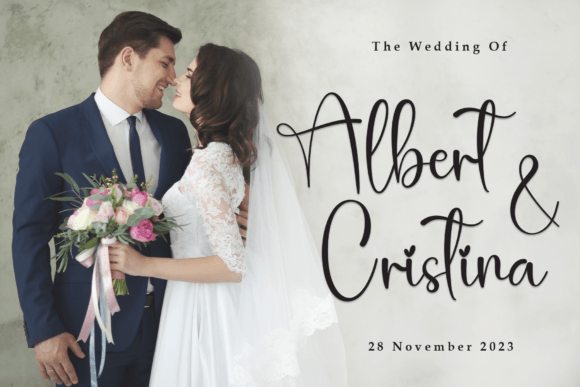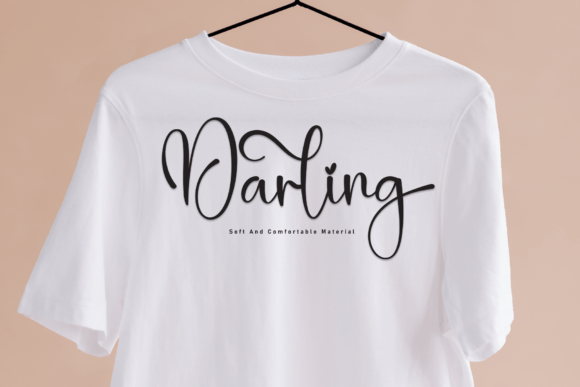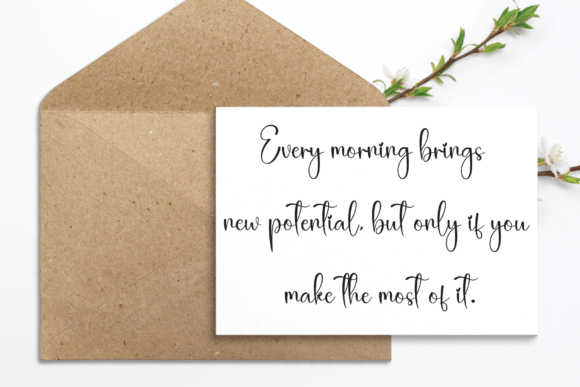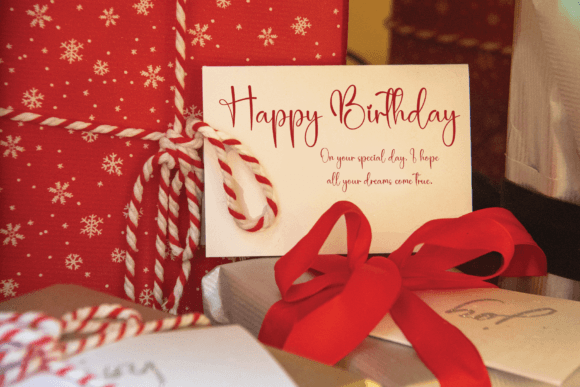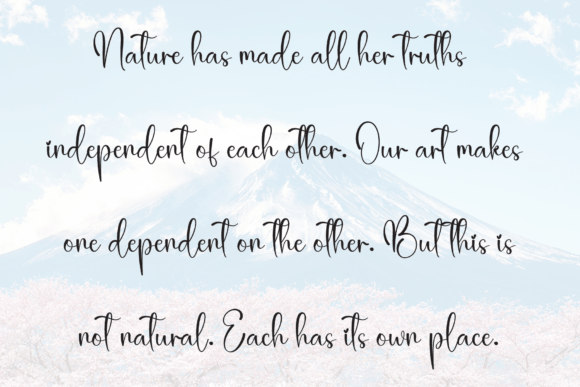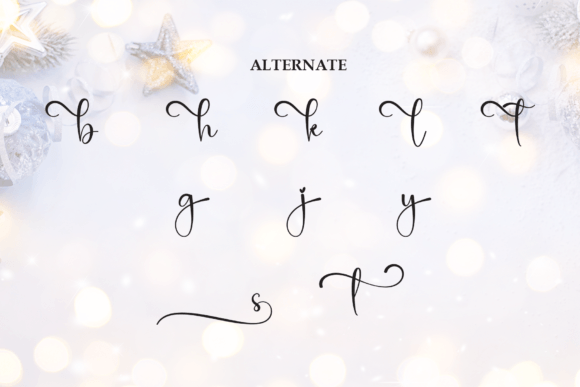
Introduction to Slowly Christmas Font
Slowly Christmas is a stylish and incredibly elegant script font.
Key Features of Slowly Christmas Font
Why Choose Slowly Christmas Font?
Slowly Christmas Font offers exceptional quality and versatility, making it a valuable addition to your design toolkit. Whether you’re creating for personal projects or commercial use, Slowly Christmas Font delivers professional results.